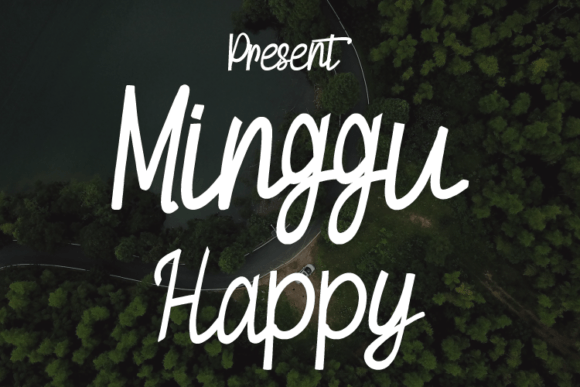
Introducing Minggu Happy Font - The Epitome of Modern Elegance and Timeless Sophistication
Step into the world of Minggu Happy, a script font family that effortlessly combines the allure of handwritten charm with the sleekness of contemporary design. This exquisite font, crafted by the talented Eric Kusuma, exudes simplicity and sophistication, making it the perfect choice for a diverse range of creative projects.
Unlock the gateway to limitless possibilities with Minggu Happy. Its carefully crafted characters dance across the page, seamlessly blending the beauty of flowing lines with the sharp precision of modern typography. Whether you're a seasoned designer or just starting your creative journey, Minggu Happy will elevate your projects to new heights.
Dive into the depths of Minggu Happy's versatility and discover a font that adapts effortlessly to a myriad of design styles. From elegant and luxurious logos that command attention to book or movie title designs that ignite imagination, Minggu Happy effortlessly weaves its magic. Let your creativity soar as you explore the endless possibilities that await you with this captivating font.
Fashion brands, magazines, clothing, fonts, quotes - Minggu Happy embraces them all with its timeless charm. Whether you seek to create eye-catching visuals for your brand, craft captivating headlines that resonate with your audience, or design inspirational quotes that touch the heart, Minggu Happy is your trusted companion.
Experience the transformative power of Minggu Happy today. Let its beauty and versatility ignite your imagination and unlock a world of creative possibilities. Embark on a journey of design excellence, where every project is infused with elegance, sophistication, and a touch of modern flair. Welcome to the world of Minggu Happy, where creativity knows no bounds.